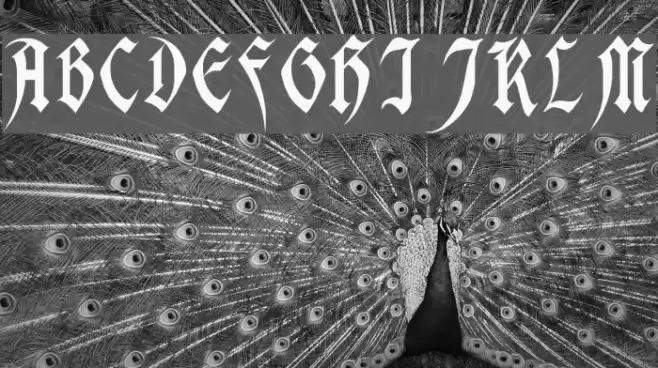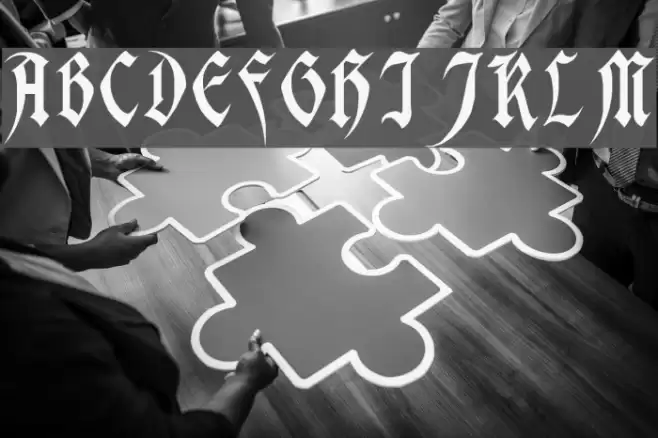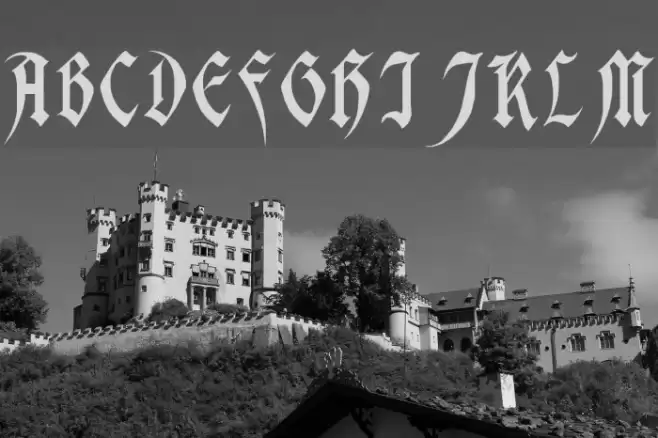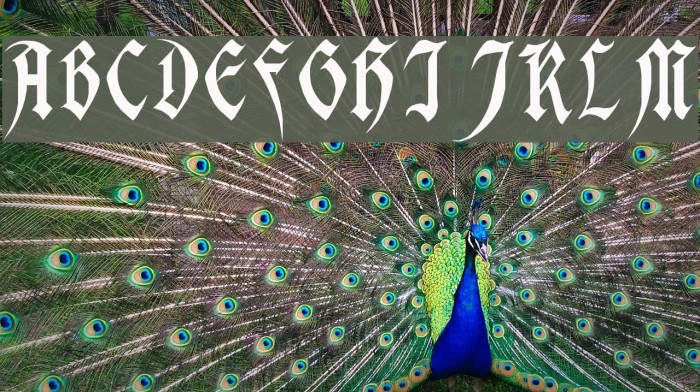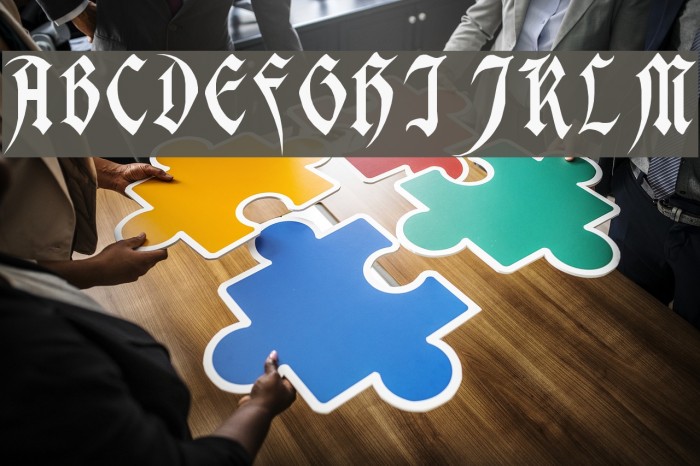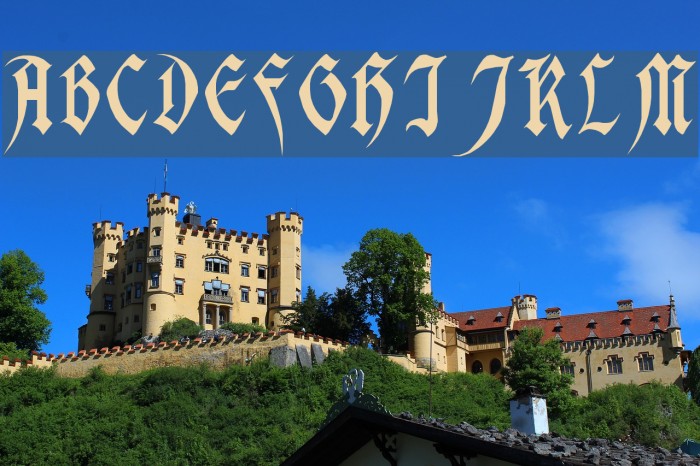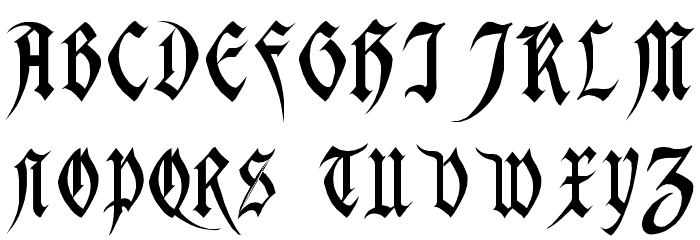
Magdelena Regular Font
Magdelena Regular Description
This font exhibits a striking blackletter style, characterized by its sharp, angular lines and dramatic flourishes. The uppercase letters are bold and commanding, with intricate details that evoke a sense of historical elegance. The lowercase letters maintain the same level of detail, ensuring consistency across the typeface. The overall design is reminiscent of medieval script, making it ideal for projects that require a touch of antiquity and sophistication. The font's unique style makes it stand out, offering a distinctive look that is both artistic and authoritative.
A bold, blackletter font with sharp, angular lines and historical elegance from Old fashioned fonts.
- Proposed Projects: Ideal for historical themed designs, book covers, posters, and branding that requires a classic, authoritative look.
- Overall Style: Vintage
- Use Case: Logos, Headlines, Decorative text